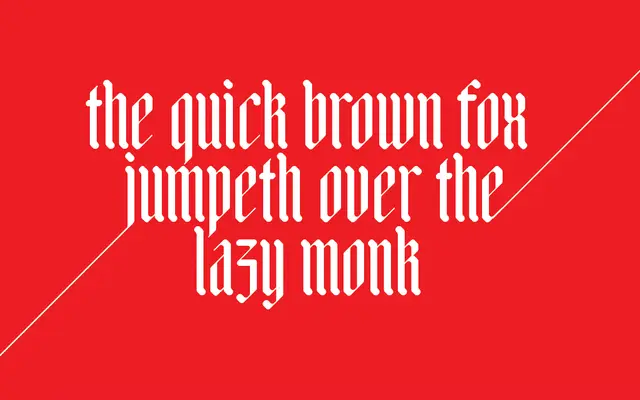
Adlibitum
Zetafonts · Francesco Canovaro · 2015
A geometric reinterpretation of medieval textura blackletter, built from 45-degree angles and softened corners across three weights.
Designed by Francesco Canovaro in 2015, Adlibitum takes the strong vertical rhythm of textura blackletter and recasts it with strict geometric construction, 45-degree angles and soft round corners. Three weights, Light through Bold, cover 197 languages via an extended Latin character set of 407 glyphs. OpenType ligature support and broad diacritic coverage make it serviceable for European-language display work.
Adlibitum is explicitly described as a contemporary restyling of old textura medieval script characters, placing it firmly in the blackletter/textura tradition, albeit with a geometric and angular modernisation.